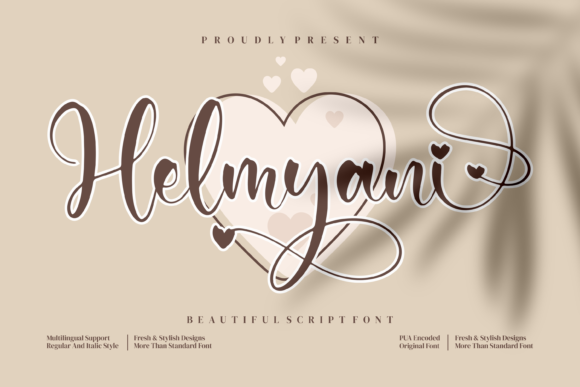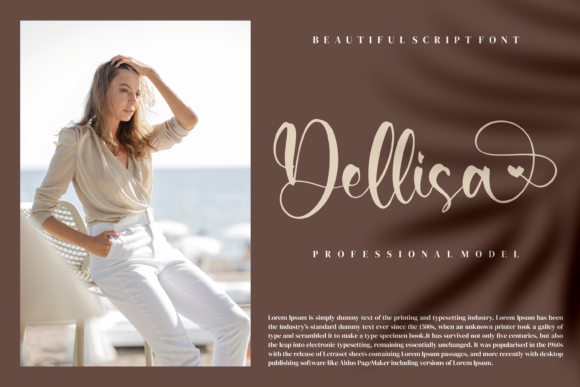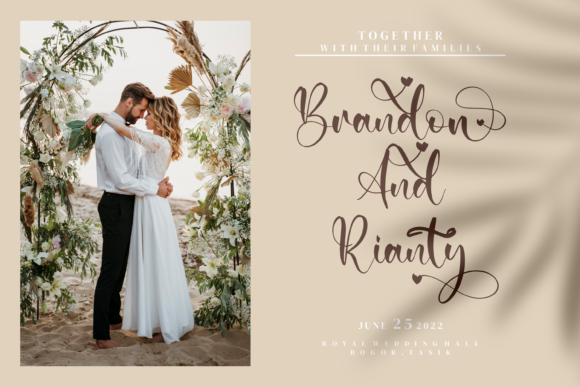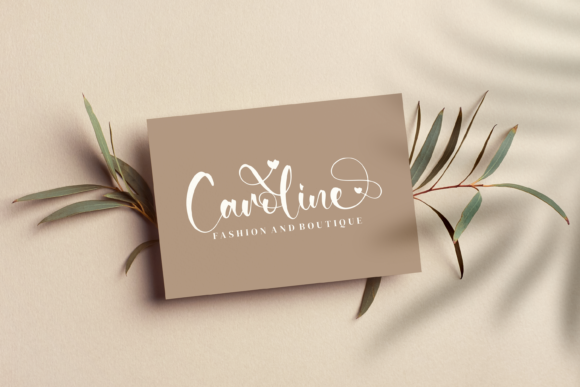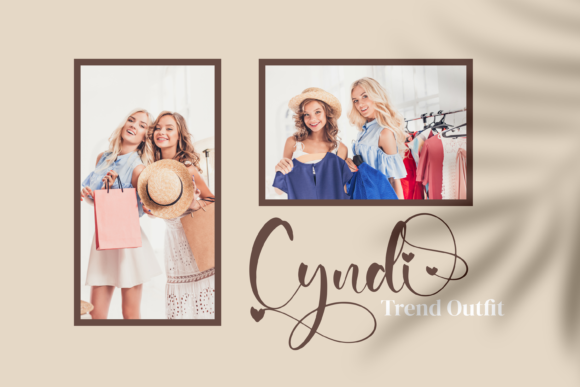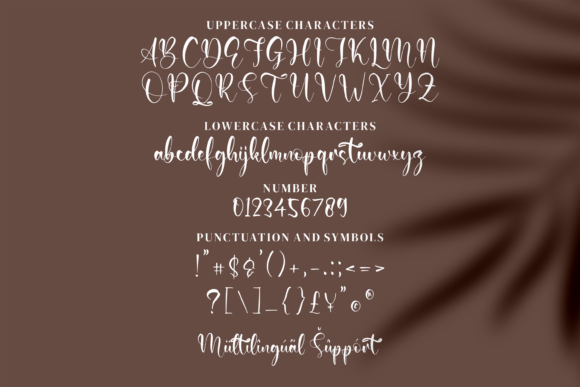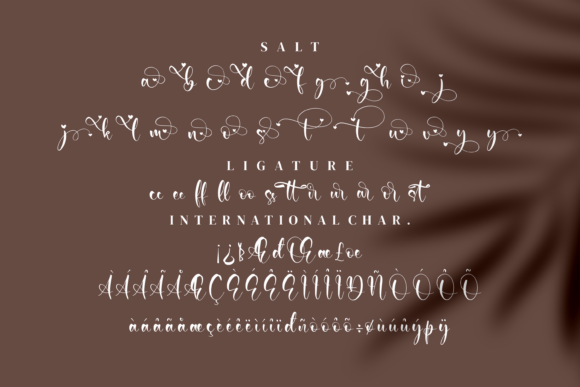
The Perfect Script for Your Next Design Project
Have you ever stared at a blank page, feeling the weight of creativity on your shoulders? The cursor blinks, taunting you to start, but the ideas just won’t come. It’s in these moments that we turn to our trusty fonts for inspiration. And what better font to spark your creativity than the elegant Helmyani Font?
Helmyani is a beautiful, cursive handwritten font that exudes warmth and sophistication. Its gentle curves are perfect for adding a touch of personality to your designs, whether it’s a wedding invitation, a birthday card, or a social media post. And with its PUA encoding, you can easily access all of the glyphs and swashes to create unique and eye-catching designs.
Helmyani Font Key Features
- Font Style: Script, Calligraphy
- Unique Characteristics: Handwritten, elegant, and cursive script font with intricate details and flourishes
Helmyani Font Review
I recently had the chance to work with the Helmyani font, and I must say it’s a unique and interesting choice. ✨ The font’s most notable feature is its calligraphic style, which gives it a touch of elegance and sophistication. It’s perfect for projects that require a high-end feel, such as luxury brand identities or upscale packaging.
- ✨ Unique calligraphic style that adds a touch of elegance and sophistication.
- ✨ Wide range of weights and styles, making it versatile for various design applications.
- ✨ Excellent for projects that require a high-end feel.
However, there are some limitations to consider: ⚠️ The font’s readability can be an issue, especially at smaller sizes. Additionally, the font’s complexity can make it difficult to work with in certain software or systems. ⚠️ Some users may also find the font’s calligraphic style too ornate or overwhelming.
Overall, I think the Helmyani font is a great choice for projects that require a touch of luxury and sophistication. While it may have some limitations, its unique style and versatility make it a valuable addition to any designer’s toolkit. With careful consideration and planning, the Helmyani font can be a beautiful and effective choice for a wide range of design applications.
Tips for Getting the Most Out of Helmyani Font
Here are some tips to get the most out of Helmyani font:
- Use Helmyani font for titles, headings, and emphasis to make your design stand out.
- Combine Helmyani font with other fonts to create a unique and interesting typography style.
Helmyani font is commonly used for: